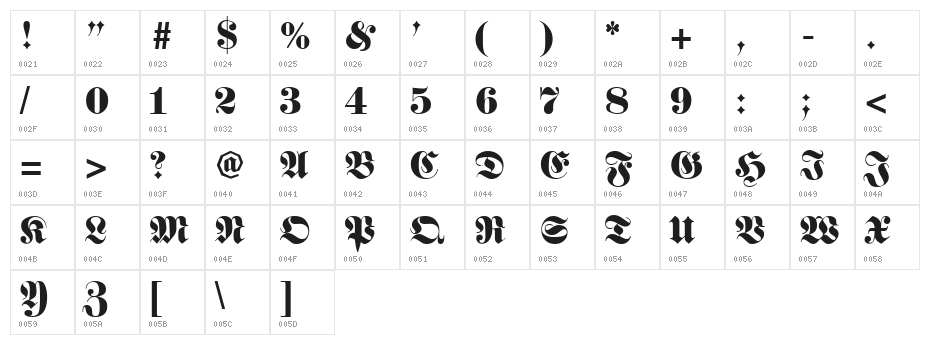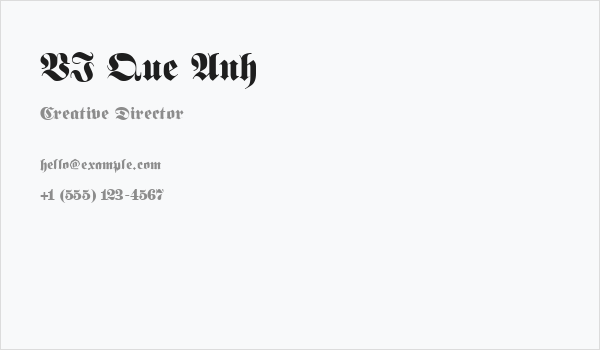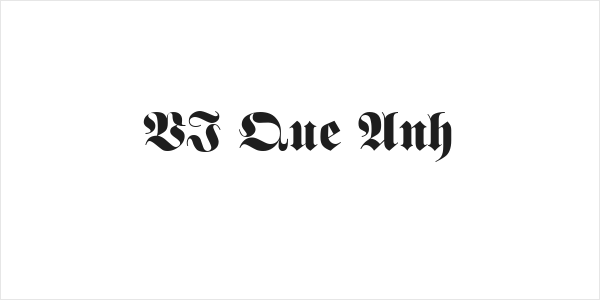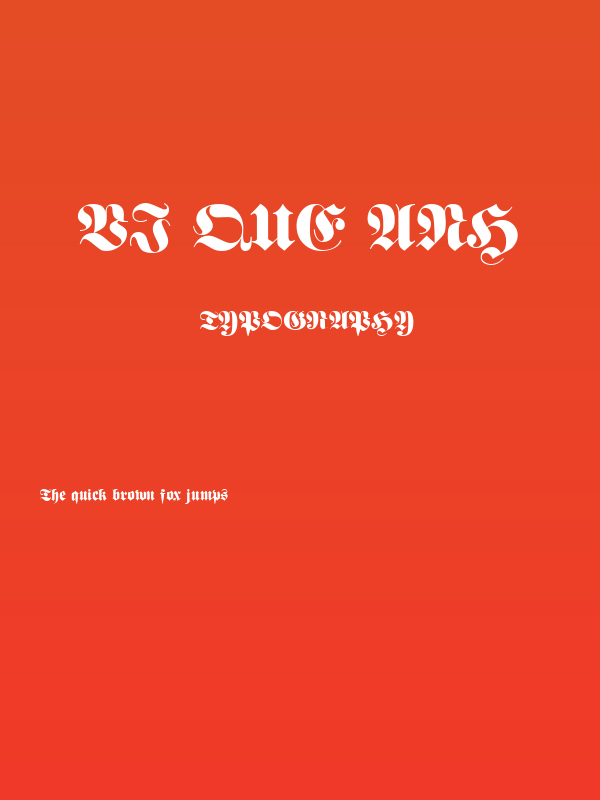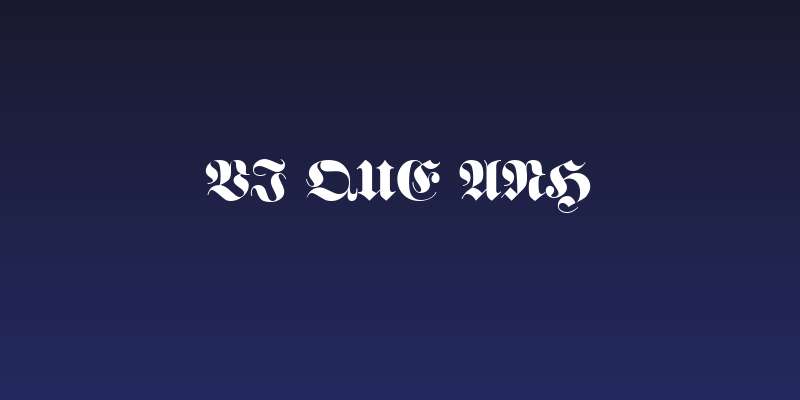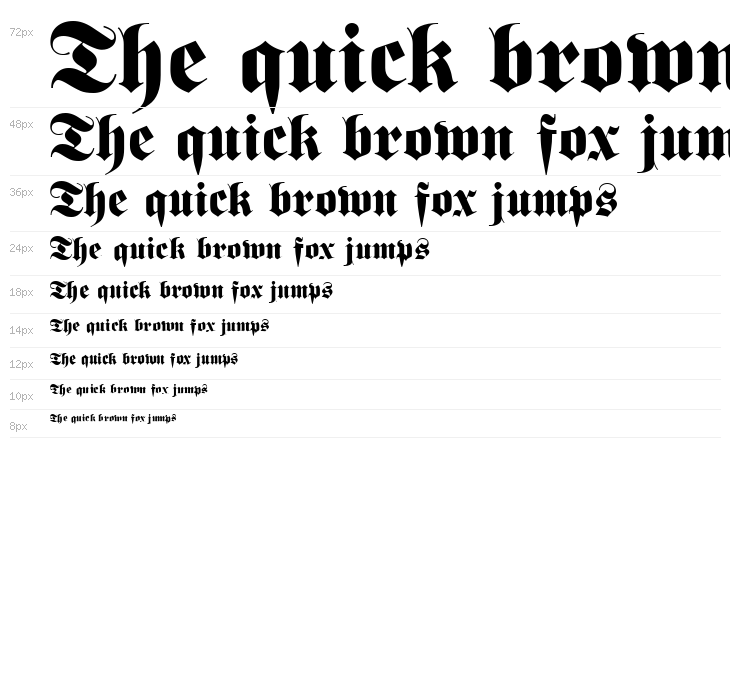
VI Que Anh Font
VI Que Anh Description
This font exudes a classic and ornate style, reminiscent of traditional Blackletter typefaces. It features intricate, flowing strokes with sharp, angular edges, giving it a bold and dramatic appearance. The uppercase letters are particularly elaborate, with decorative flourishes and a strong presence. The lowercase letters maintain the same level of detail, ensuring consistency throughout the typeface. Numbers and special characters are equally stylized, making this font suitable for projects that require a touch of elegance and historical charm. Its high contrast in stroke thickness adds to its striking visual impact.